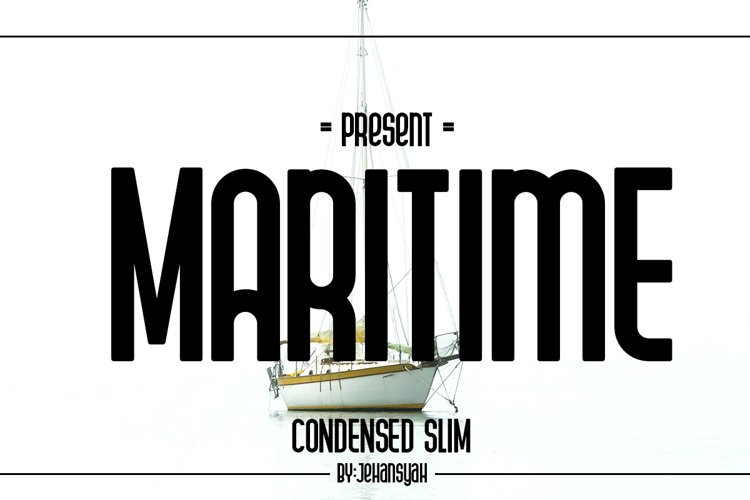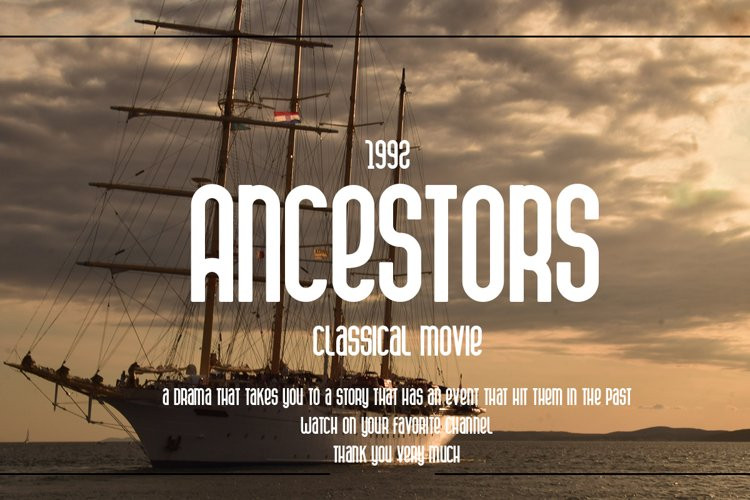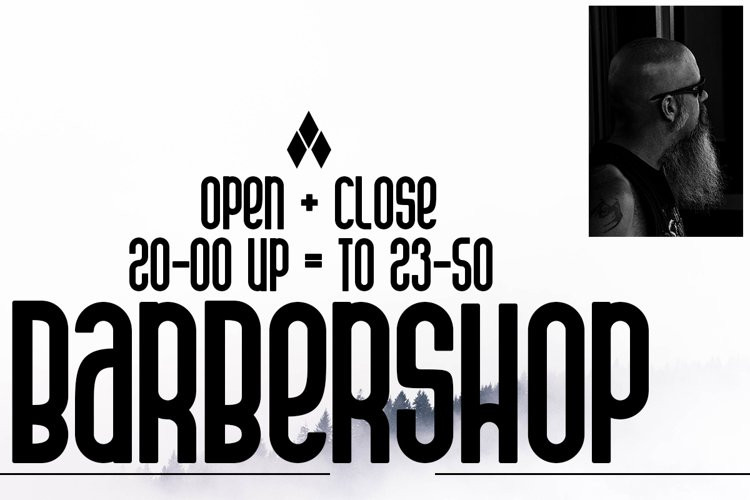
Maritime Font
Maritime. This Sans font will take you to a more modern world, looks ordinary but this font is perfect for you to use, the thickness is ideal and suitable for designs that want to appear confident. use this design for all your design needs, titles, magazines, brochures, clothing and other crafts